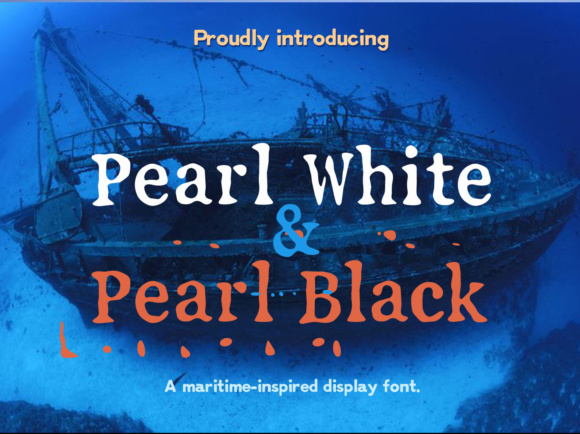
Unveil the Treasure Within: Pearl Font - Where Charm and Whimsy Converge
In the realm of typography, Pearl Font emerges as a radiant gem, a treasure waiting to adorn your creative endeavors. With its maritime-inspired essence, this textured serif font exudes a captivating charm that instantly transports you to a world of salty breezes and swashbuckling adventures.
Crafted with meticulous care by the esteemed font designer Markus Schroppel, Pearl Font embodies the spirit of the open seas, evoking images of ancient maps, weathered parchments, and the allure of distant horizons. Its dynamic yet playful nature allows it to effortlessly adapt to a wide array of design projects, adding a touch of whimsy and enchantment to your words.
Whether you're navigating the treacherous waters of marketing, crafting compelling social media posts, or designing eye-catching logos, Pearl Font stands as your steadfast companion, ready to elevate your creations to new heights. Its distinctive character and undeniable charisma make it the perfect choice for those seeking to leave an indelible mark on their audience.
Immerse yourself in the boundless possibilities that await you with Pearl Font. Let its textured strokes and playful curves guide your imagination, transforming ordinary words into captivating narratives. Whether you're a seasoned designer or just setting sail on your creative journey, Pearl Font is your trusted guide, ready to lead you to typographic treasures.